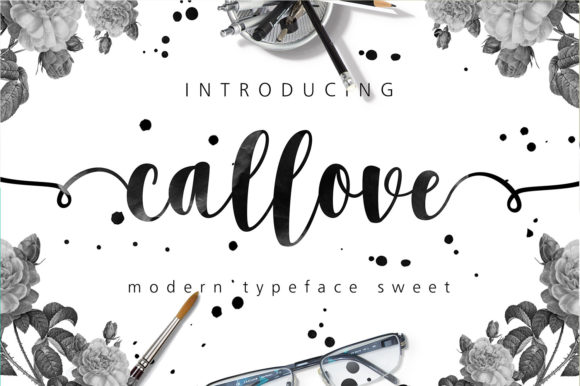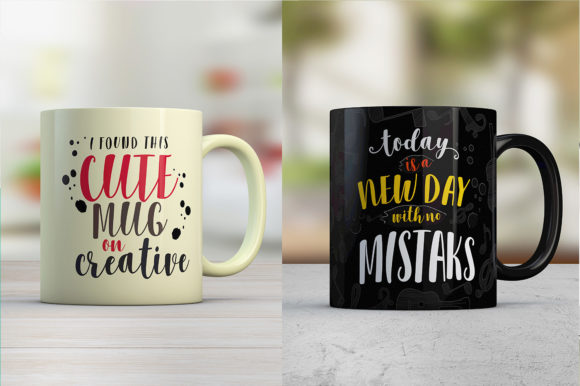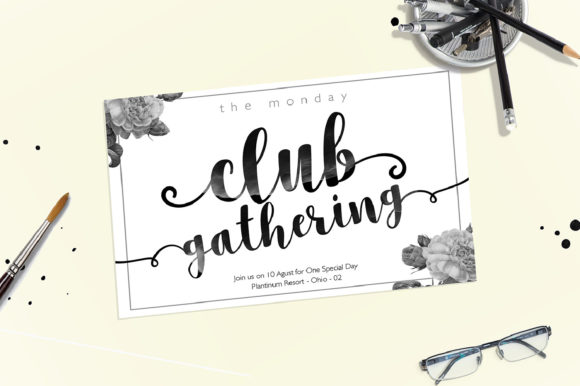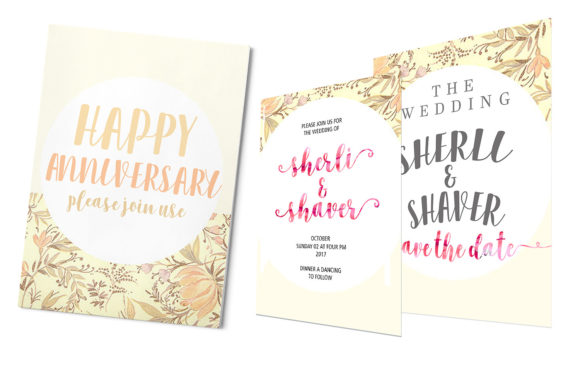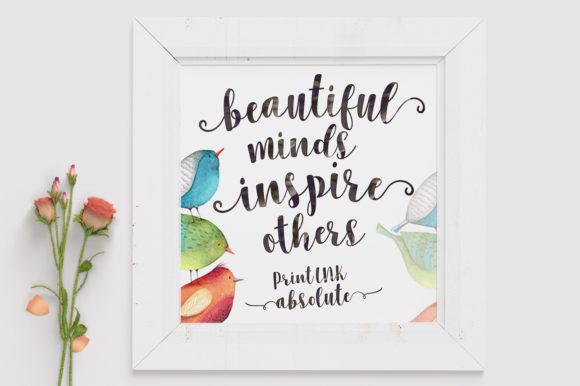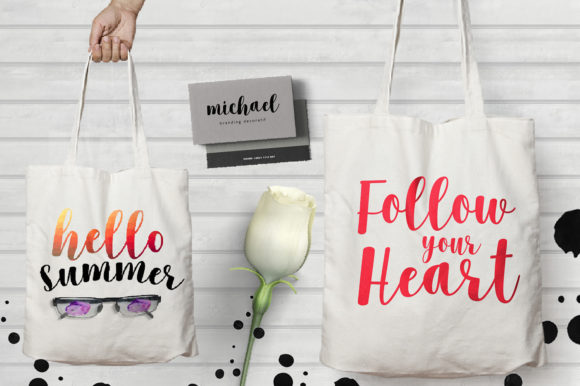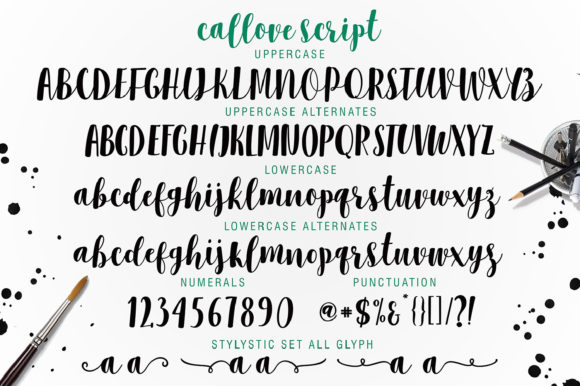
Callove Script Font
About Callove Script Font
Callove is a modern script font that can be used for various projects and design ideas. It has a trendy, natural, and gentle feel, features that will beautifully highlight your most impressive creations!